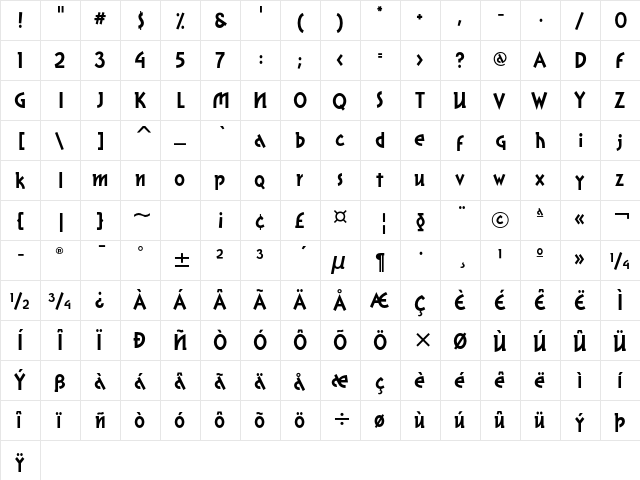
Grapefruit ITC Std Regular
| Designer | Gyori Attila |
Design Context for Grapefruit ITC Std Typeface
Grapefruit ITC Std offers clean, dependable letterforms without strong stylistic allegiance, making it a practical choice for designers who need flexibility.